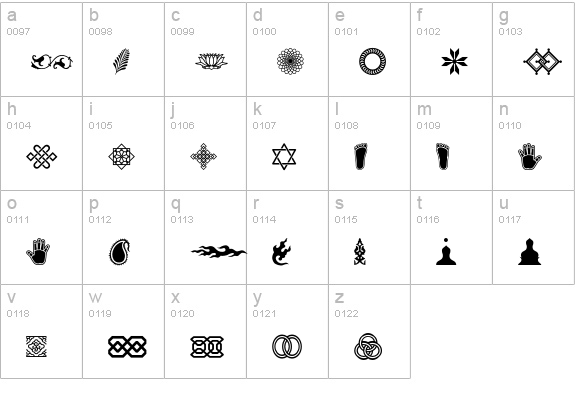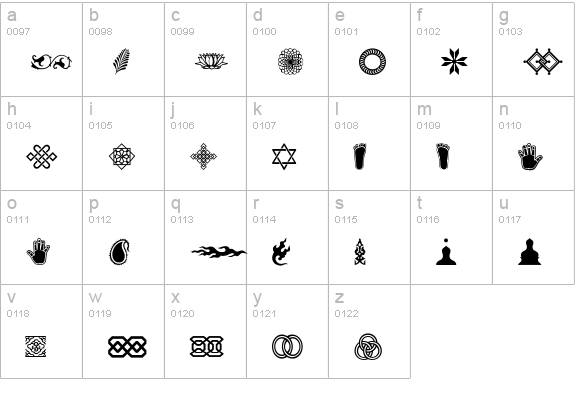
Exotica-Ohchid Font Details
Exotica-Ohchid font is a stunning display typeface that embodies elegance and exotic charm. With its intricate floral-inspired details and unique design, this font is perfect for projects that require a touch of sophistication and beauty. The graceful curves and ornate elements of Exotica-Ohchid add a luxurious feel to any design, making it ideal for branding, invitations, packaging, and more. What's even better is that Exotica-Ohchid font is available for free download at FontsMarket.com. This means you can easily access this exquisite font to elevate your projects without any cost. Don't miss out on the opportunity to add a touch of exotic beauty to your designs with the stunning Exotica-Ohchid font, now freely available for download.